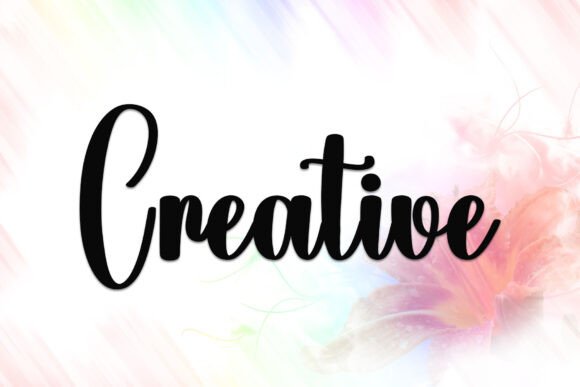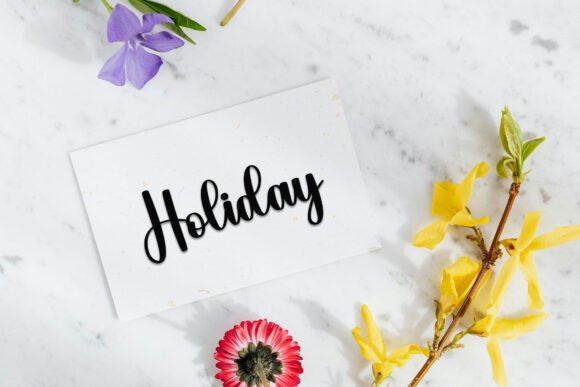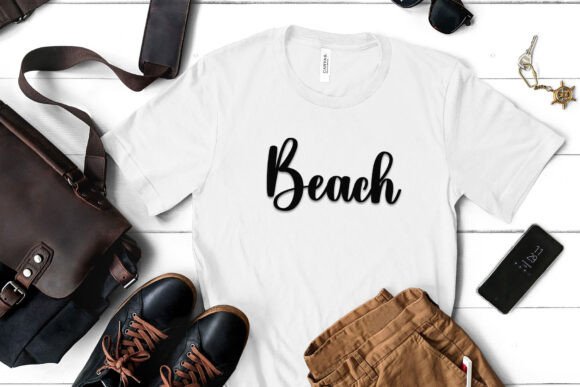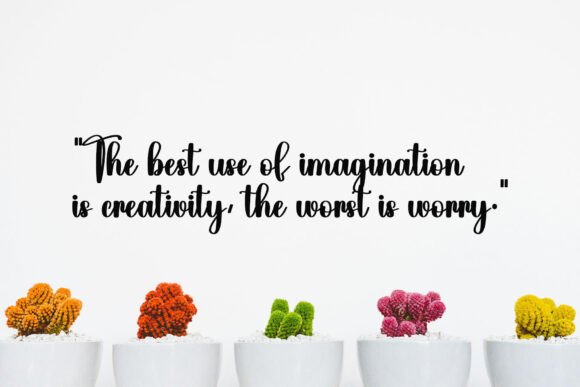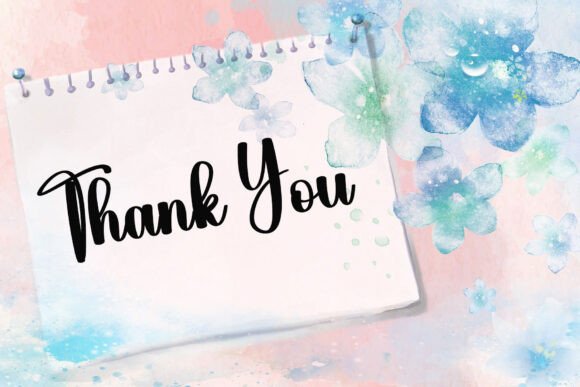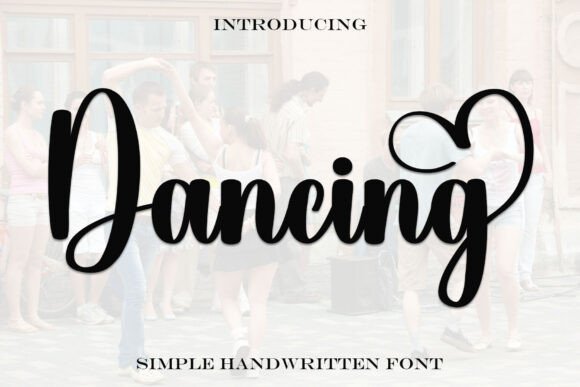
Dancing Font: Elevate Your Designs with Elegance and Class
Are you looking for a font that exudes sophistication and style? Look no further than the Dancing Font, a trendy handwritten font that brings a contemporary atmosphere and impeccable form to your design projects. Inspired by timeless classic calligraphy, this font is sure to add a touch of elegance and class to any design.
The Inspiration Behind Dancing Font
The Dancing Font is inspired by the art of traditional calligraphy, which has been a cornerstone of elegant writing for centuries. Calligraphy is an art form that requires skill, patience, and practice, and its beauty lies in its flowing lines, precise lettering, and classic style. The Dancing Font captures the essence of calligraphy and brings it to the digital world, making it easy to add a touch of sophistication to any design project.
Key Features of Dancing Font
The Dancing Font has several key features that make it a standout choice for designers and crafters. Some of its notable features include:
- Trendy and Contemporary: The Dancing Font has a modern and fresh feel that makes it perfect for designers who want to create contemporary designs.
- Handwritten Style: The font has a handwritten style that gives it a personal and human touch, making it perfect for designs that require a personal and emotive feel.
- Elegant and Classy: The Dancing Font is inspired by classic calligraphy, which gives it an air of elegance and sophistication.
- Impeccable Form: The font has a precise and well-defined form that makes it easy to read and understand.
Uses of Dancing Font
The Dancing Font is a versatile font that can be used in a variety of design projects, including:
- Wedding Invitations: The font’s elegant and classy style makes it perfect for wedding invitations, ceremony programs, and other wedding-related designs.
- Branding and Logo Design: The Dancing Font can be used to create elegant and sophisticated logos and branding materials.
- Stationery and Greeting Cards: The font’s handwritten style and classic feel make it perfect for creating stationery and greeting cards.
- Packaging Design: The Dancing Font can be used to add a touch of elegance and sophistication to packaging designs.
The Dancing Font is a beautiful and elegant font that can add a touch of sophistication and class to any design project. Its trendy and contemporary style, combined with its impeccable form and classic feel, make it a versatile font that can be used in a variety of designs. Whether you’re a designer, crafter, or DIY enthusiast, the Dancing Font is a great choice for anyone looking to create elegant and stylish designs.